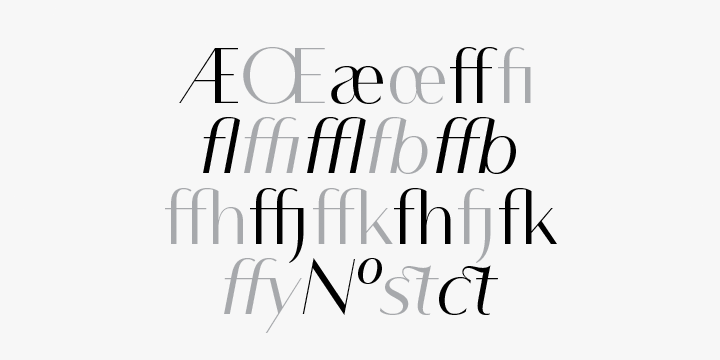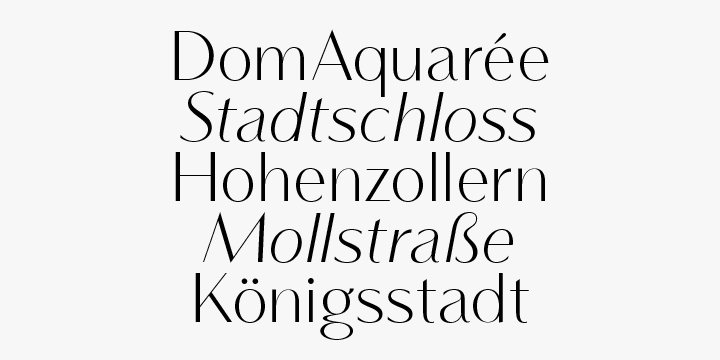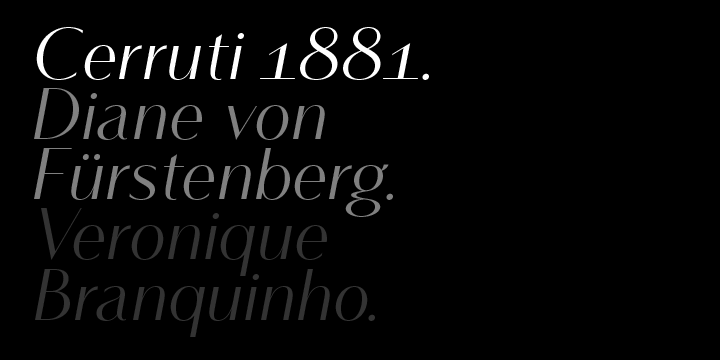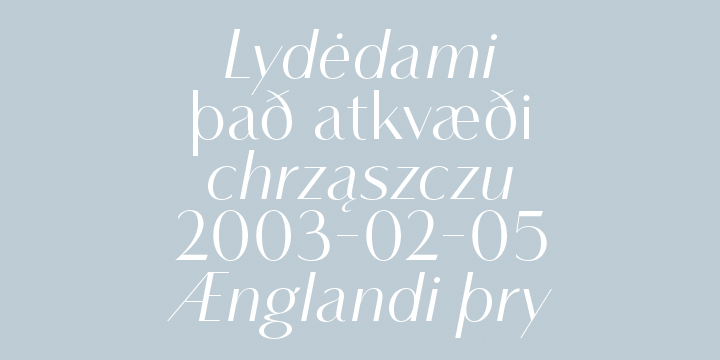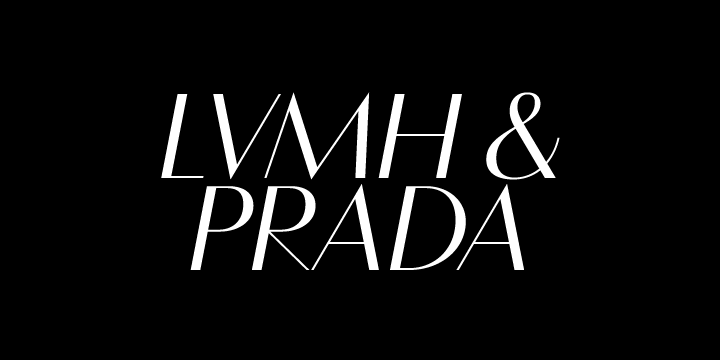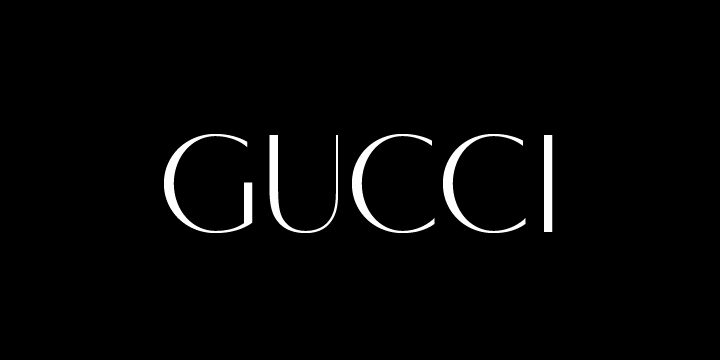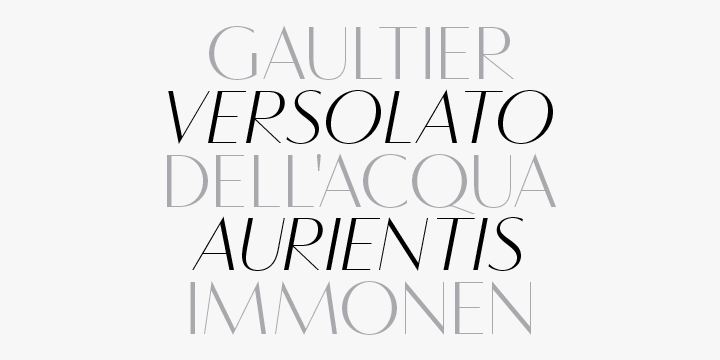
Vanitas is a sans serif font family. This typeface has four styles and was published by AE Type Inc.
Vanitas is an elegant high contrast contemporary sans. It is rooted in the style of a classic didone, excluding the typical serifs and ball terminals as well as being designed with a cleaner, more reductionist appearance. Strict attention was given to the cohesiveness and balance between letterforms as well as the careful refinement of all curves.
Stylistically, Vanitas’ alluring, sophisticated sensibility is directly inspired by high fashion. The upright styles are complimented by a pairing of optically adjusted true italics, which were purposefully adapted to retain the sharpness of their counterparts. Abandoning traditionally executed cursive italic letterforms retains Vanitas’ sharp characteristic through each style.
Features include:
Precision kerning
Standard Ligatures set including ‘f’ ligatures (fb, ff, fh, fi, fj, fk, fl ffb, ffh, ffi, ffj, ffk, ffl, ffy, ae, oe, AE, OE)
Discretionary Ligatures set including (st, ct, No)
Alternate characters (H, A, AE, Q, $, h circumflex, ¶ and numero sign)
Case forms (shifts various punctuation marks up to a position that works better with all-capital sequences)
Capital Spacing (globally adjusts inter-glyph spacing for all-capital text)
Slashed zero
Full set of numerators/denominators
Tabular Lining, Proportional Lining, Tabular Oldstyle and Proportional Oldstyle Figures
Automatic fraction feature (supports any fraction combination)
Extended language support (Latin-1 and Latin Extended-A)